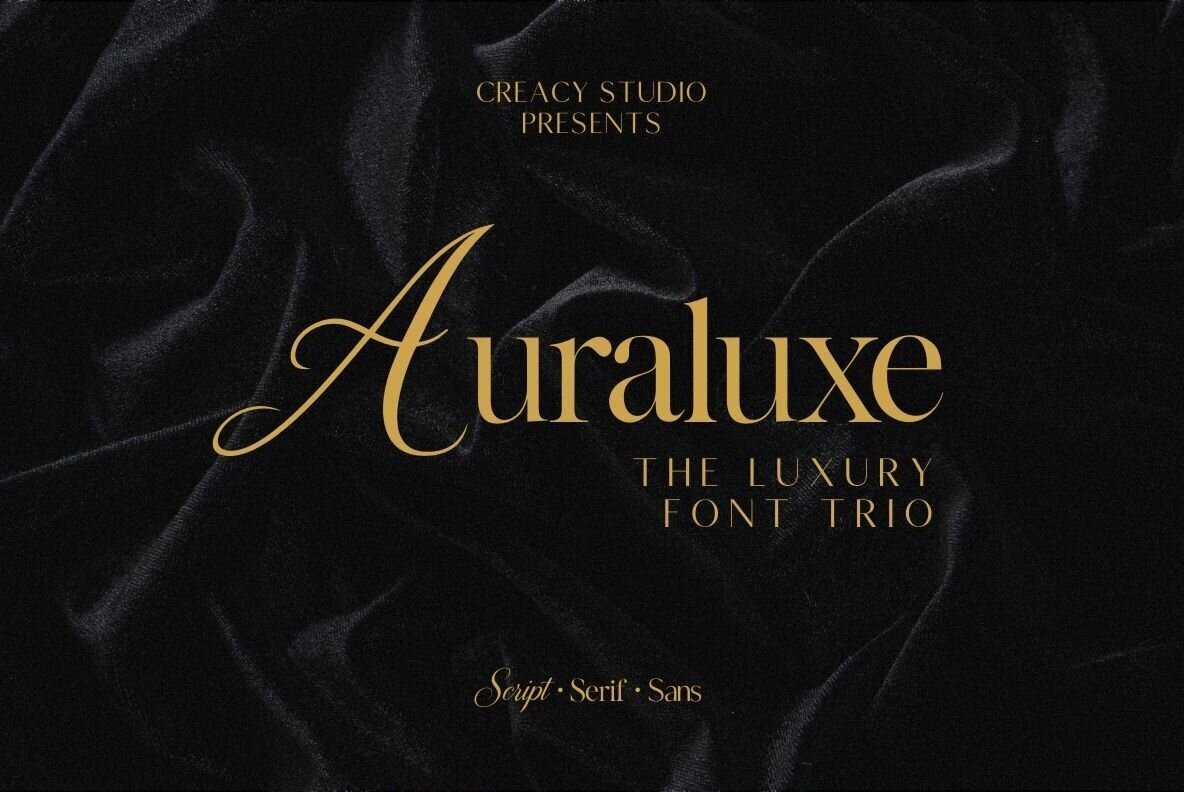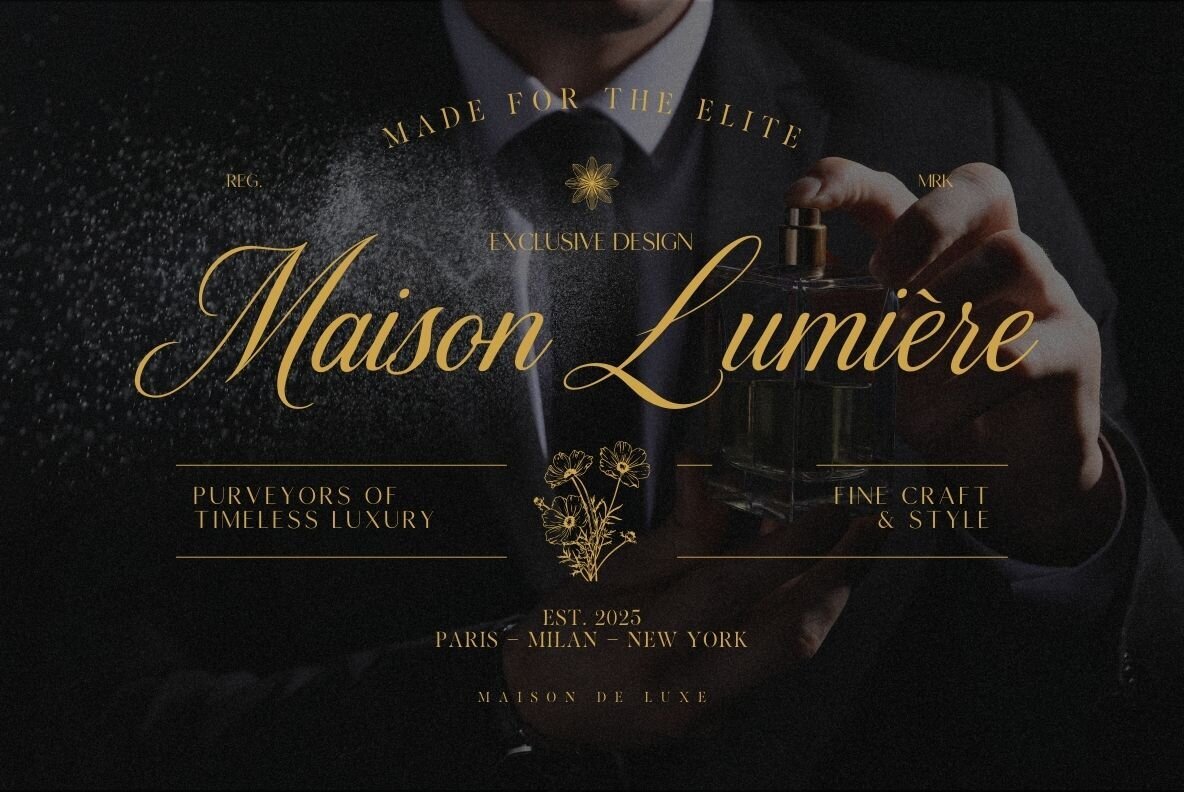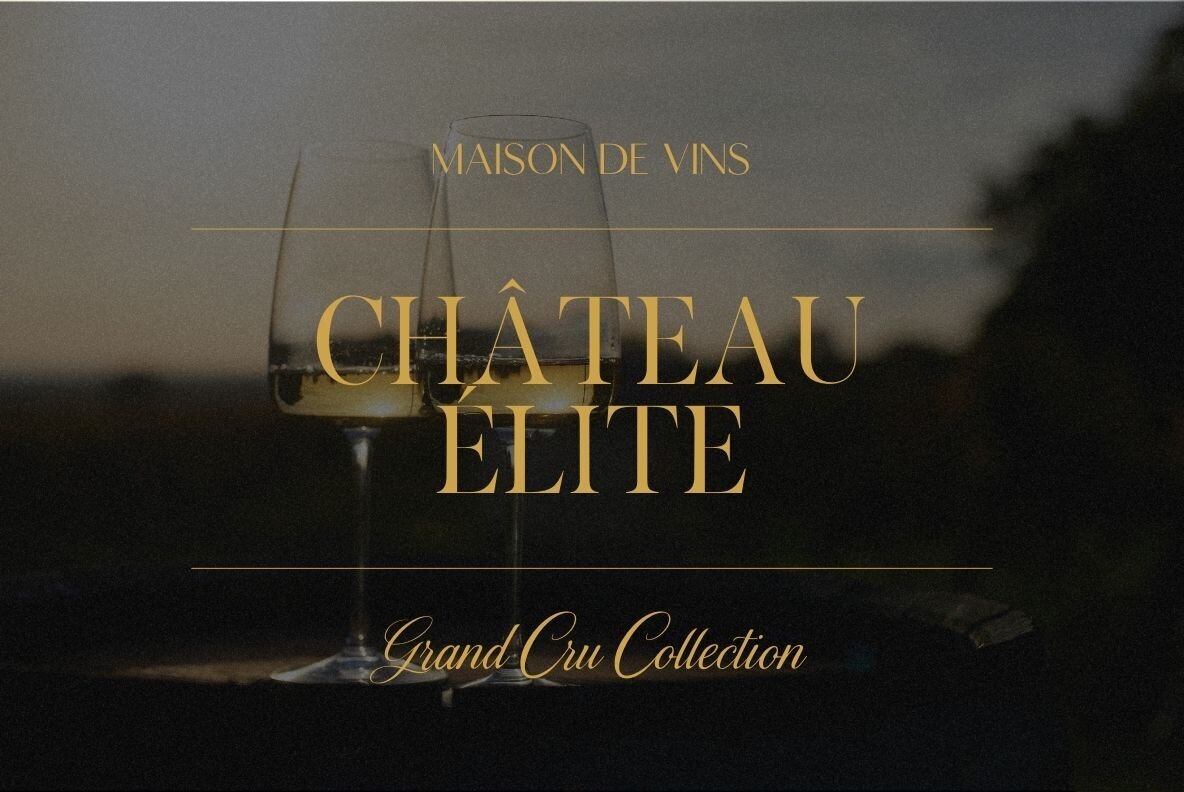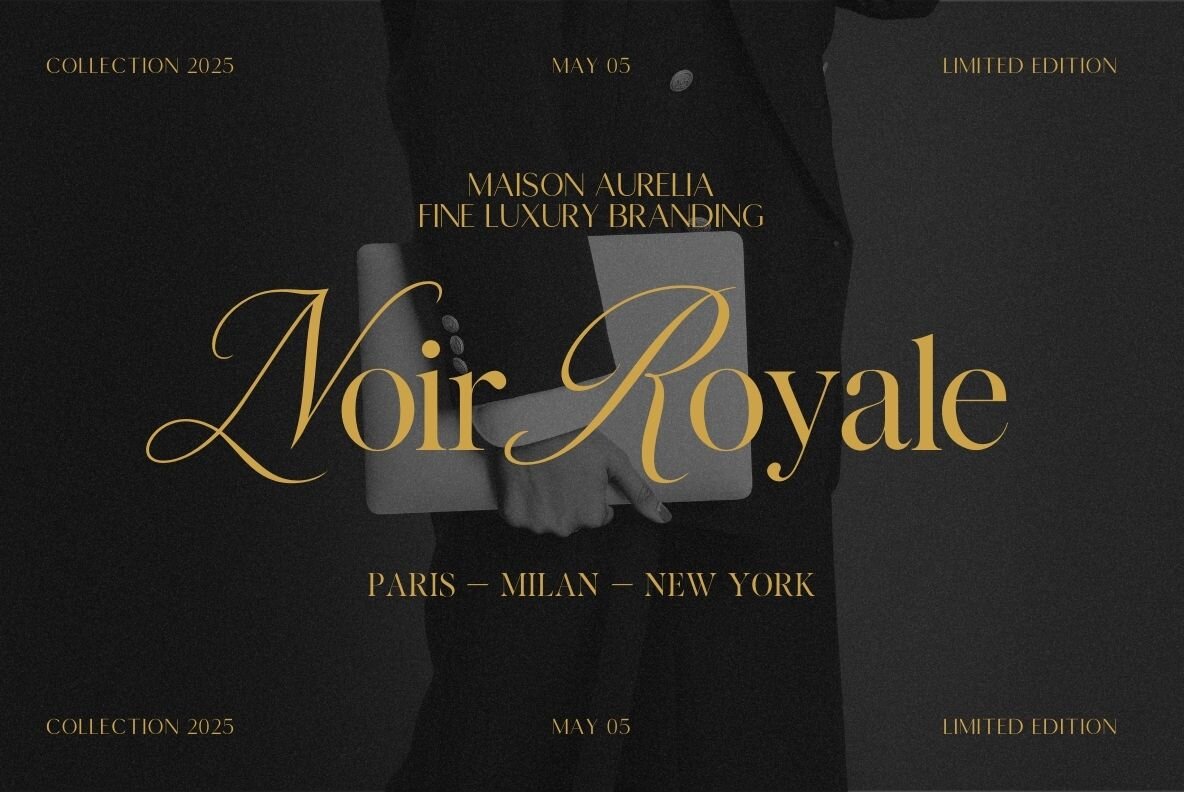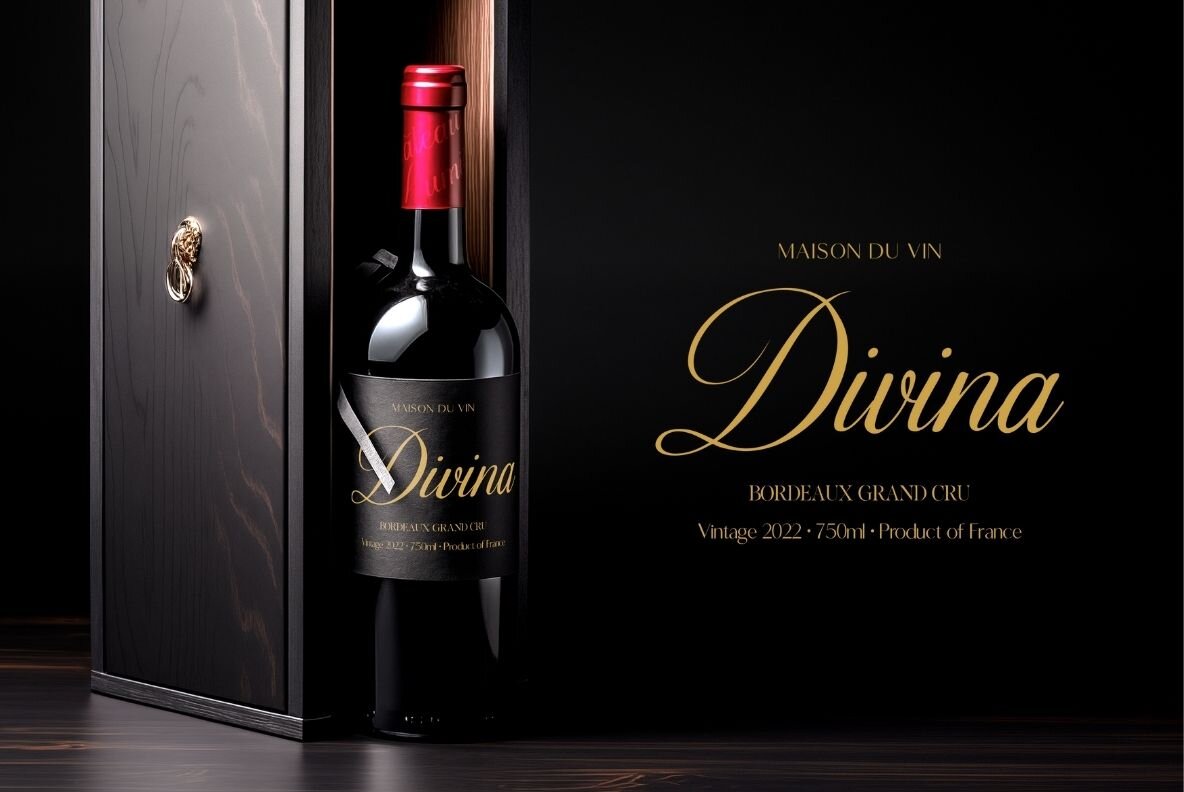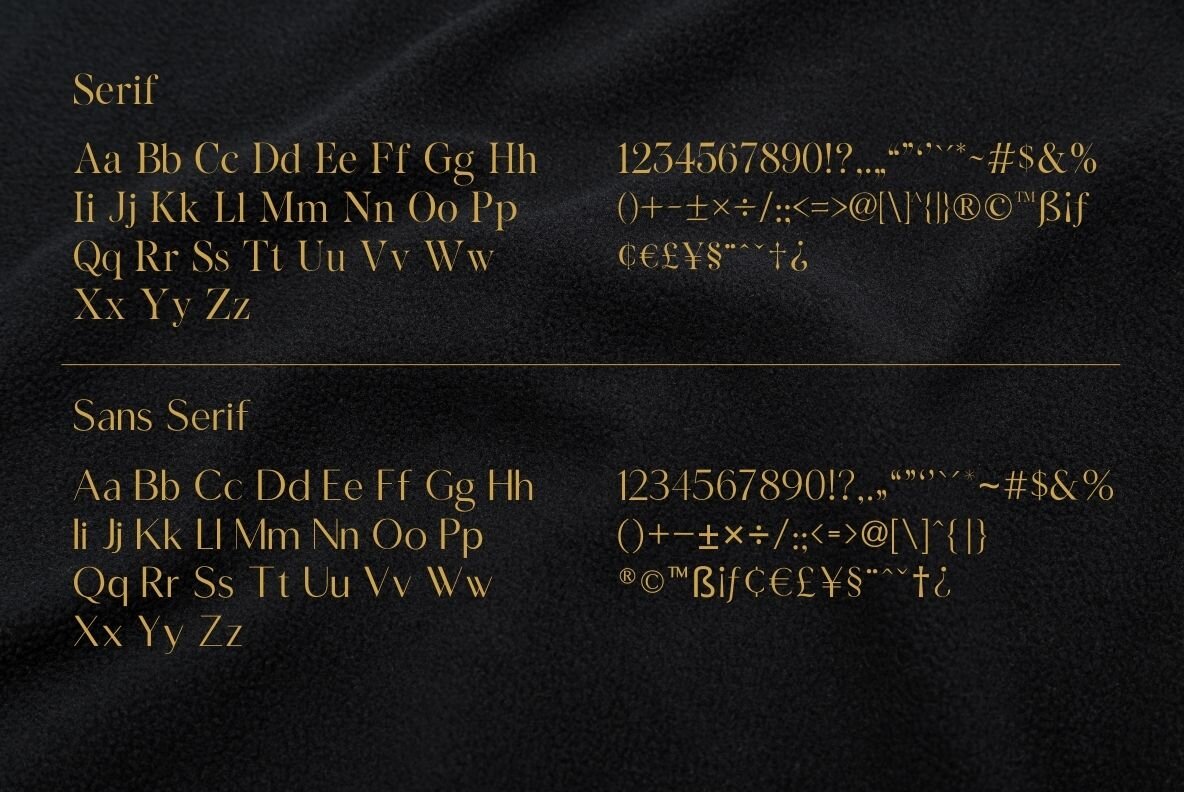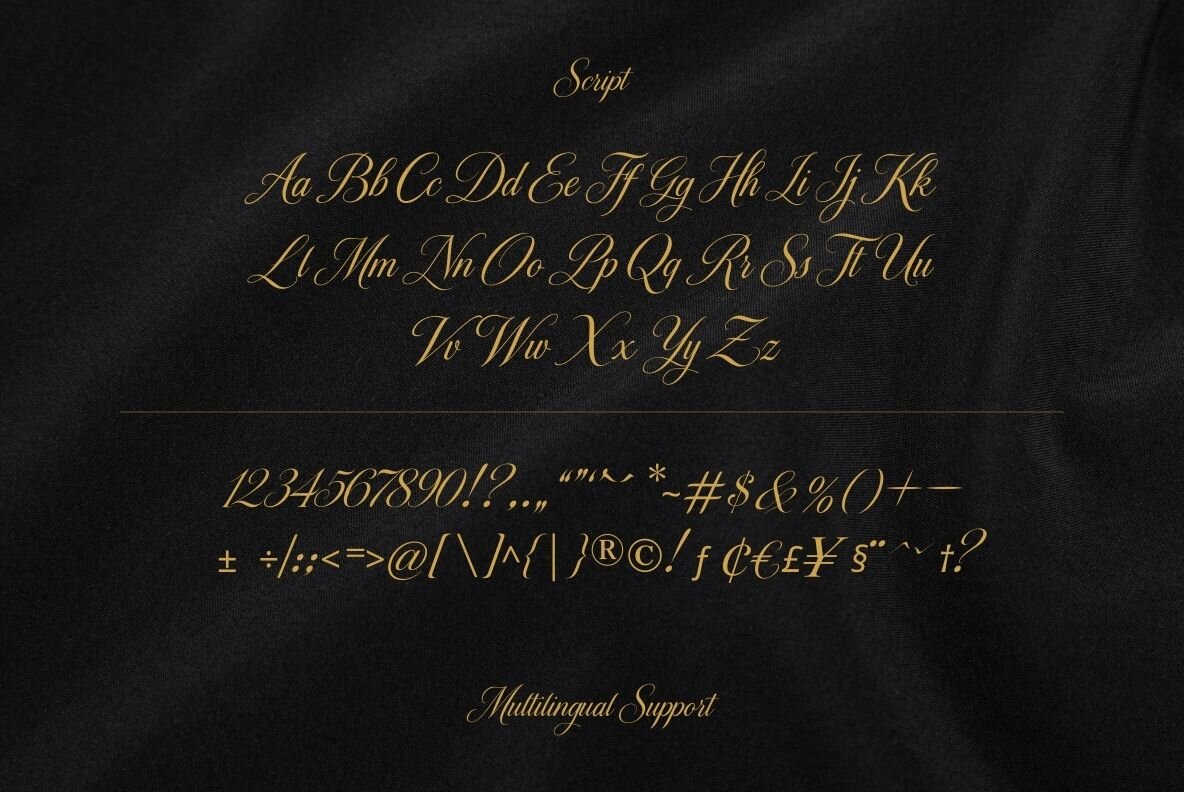
Auraluxe Font
Auraluxe by Creacy Studio is a sophisticated font trio designed to seamlessly blend timeless elegance with modern refinement. Featuring Script, Serif, and Sans styles, this exquisite collection is perfect for luxury branding, editorial design, and high-end packaging. Whether you're crafting an identity for fashion labels, fine wines, perfumes, or boutique hotels, Auraluxe exudes an air of exclusivity and classic charm. Each style is meticulously curated to complement one another, creating a versatile toolkit for logos, invitations, magazine layouts, and premium product design. Elevate your brand's presence with Auraluxe Font Trio, where timeless design meets modern luxury with refined harmony.Auraluxe Font Trio: A Symphony of Timeless Elegance